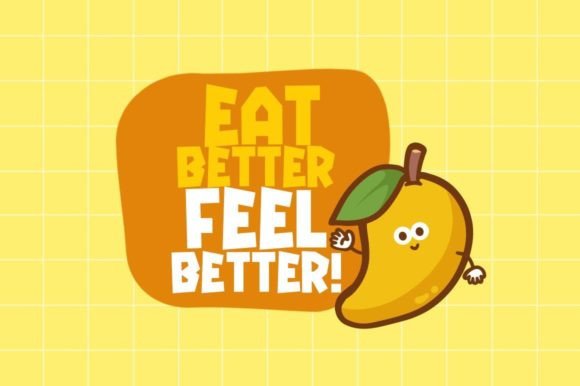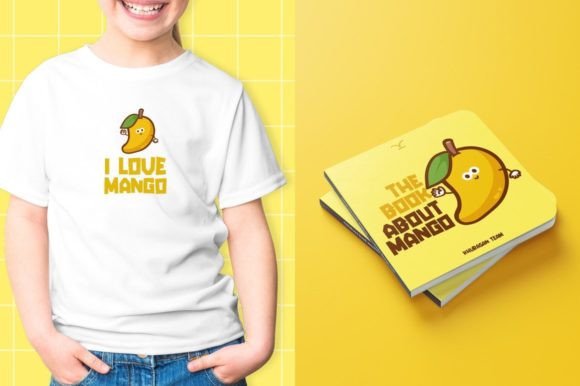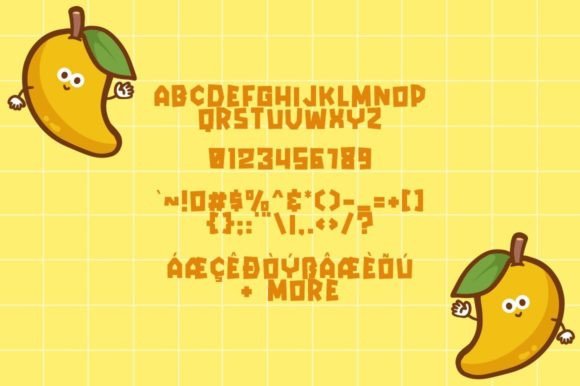
Introduction to Mango Days Font
Mango Days is a fun and cool display font.
Whether you use it for cartoon-related designs, childrenโs games, or just any creation that requires a playful touch, this font is the perfect choice for your designs .